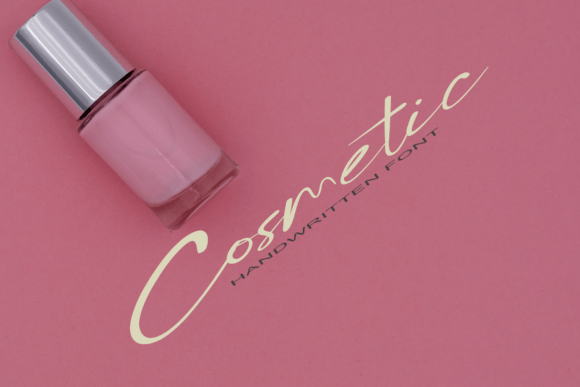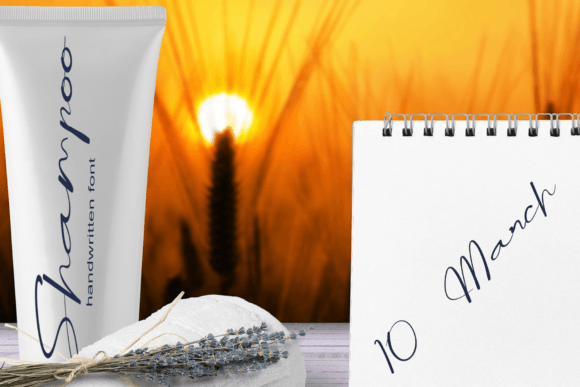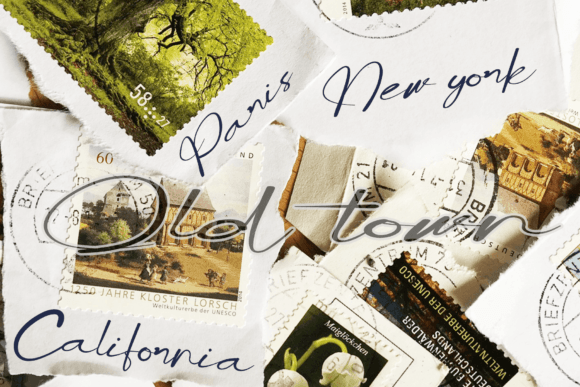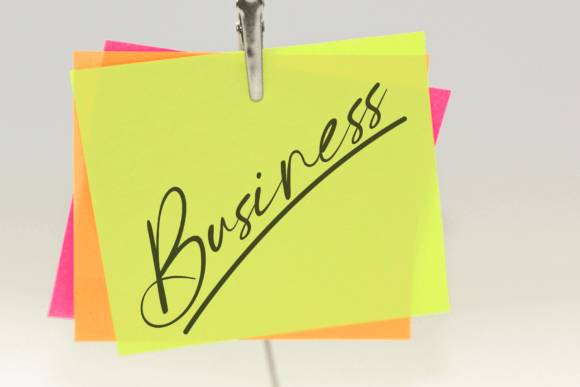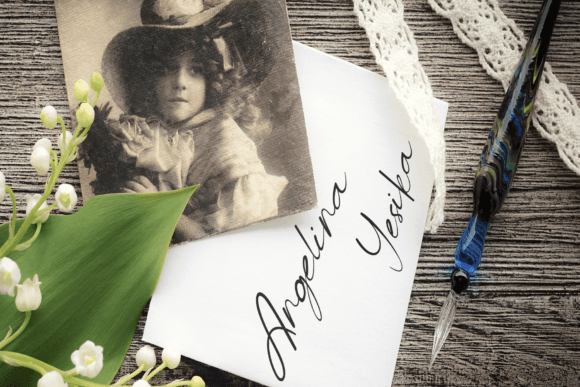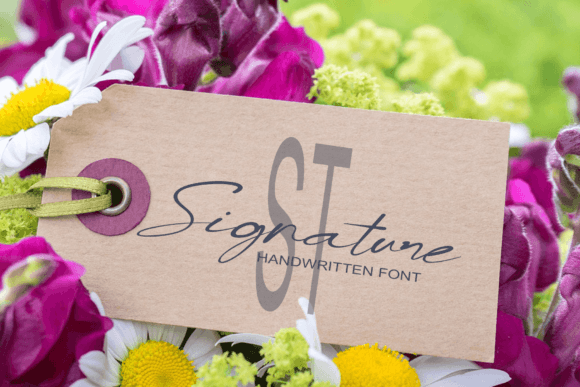
Genuine Handmade Font: Elevate Your Designs with Elegance and Sophistication
In the world of digital design, fonts play a crucial role in conveying the tone and personality of a brand or project. For designers and crafters seeking to add a touch of elegance and sophistication to their work, the Genuine Handmade Font is an excellent choice. This stylish and incredibly elegant handwritten font is perfect for a variety of design applications, including wedding invitations, thank you cards, quotes, greeting cards, logos, business cards, and more.
What Makes Genuine Handmade Font Stand Out?
The Genuine Handmade Font is a beautifully crafted handwritten font that exudes a sense of luxury and refinement. Its unique characteristics include:
- Fluid and Natural Strokes: The font features fluid and natural strokes that give it a genuine handmade feel.
- Elegant Letterforms: Each letterform is carefully designed to be elegant and sophisticated, making it perfect for high-end designs.
- Highly Versatile: The font is highly versatile and can be used for a wide range of design applications, from wedding invitations to business cards.
Wedding designers and event planners will love the Genuine Handmade Font for its romantic and elegant feel. The font is perfect for:
- Wedding Invitations: Add a touch of elegance to your wedding invitations and save the dates.
- Thank You Cards: Express your gratitude with beautifully designed thank you cards.
- Event Branding: Use the font to create a cohesive brand identity for your event or wedding.
Ideal for Crafters and Small Business Owners
Crafters and small business owners can also benefit from using the Genuine Handmade Font in their designs. The font is perfect for:
- Product Labels: Add a personal touch to your product labels and packaging.
- Business Cards: Create professional and elegant business cards that stand out.
- Social Media Graphics: Use the font to create engaging social media graphics that reflect your brand’s personality.
Tips for Using Genuine Handmade Font
To get the most out of the Genuine Handmade Font, here are some tips to keep in mind:
- Pair with a Sans-Serif Font: Pair the Genuine Handmade Font with a sans-serif font for a beautiful contrast.
- Use for Headings and Titles: Use the font for headings and titles to add a touch of elegance to your designs.
The Genuine Handmade Font is a versatile and elegant font that can elevate your designs to the next level. Whether you’re a designer, crafter, or small business owner, this font is perfect for adding a touch of sophistication and elegance to your work. With its fluid and natural strokes, elegant letterforms, and highly versatile design, the Genuine Handmade Font is a must-have for any design enthusiast.